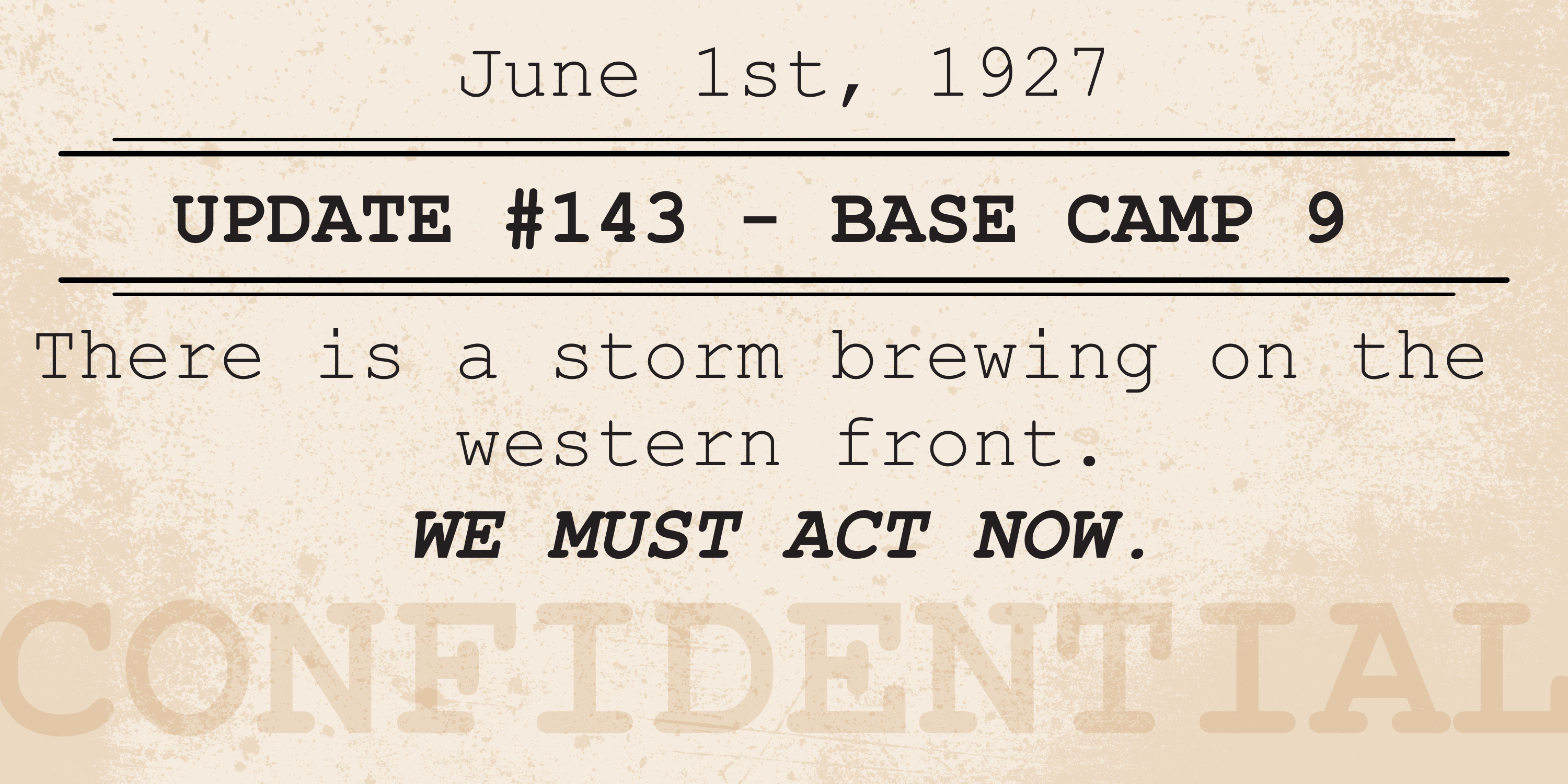
Courier New OS Font is perfect for programming documentation, technical manuals, code editor interfaces, typewriter-style designs, terminal applications, vintage computing graphics, monospace web layouts, software development materials, retro tech branding, and authentic coding environments.
Courier New OS Font is exciting because it represents the foundational typography of digital computing and programming culture through its precise monospaced letterforms that honor the legacy of typewriters while serving as the backbone of modern software development and technical communication.
Courier New OS Font family includes Regular, Bold, Light, Oblique, Italic, Condensed, Extended, and Mono variations, offering developers and designers a complete monospaced toolkit to create authentic technical communications that maintain perfect character alignment and coding clarity.
Courier New OS Font embodies the essence of technical precision and programming tradition, making it an essential choice for software companies, educational institutions, and technical organizations that prioritize functionality and coding authenticity. This fundamental typeface brings reliability and technical credibility to any design project, whether you're developing programming tutorials, creating software documentation, or designing developer tools. The perfectly uniform character spacing of Courier New OS Font Free Download ensures optimal code readability while maintaining the nostalgic appeal that connects modern developers to computing history and typewriter traditions.
Technology industry professionals consistently choose Courier New OS Font for code editors, terminal interfaces, and technical documentation because of its ability to provide perfect character alignment and reduce eye strain during extended coding sessions. The font's utilitarian appearance makes it particularly effective for targeting developers and creating programming environments that prioritize functionality over aesthetics.
Courier New OS Font dominates educational and technical environments where code clarity and learning efficiency are paramount. Computer science programs and coding bootcamps rely on this font to create materials that help students develop proper programming habits while maintaining visual consistency across different platforms and operating systems.
The software development and tech consulting sectors have embraced Courier New OS Font for API documentation, technical specifications, and developer-focused communications. Its authoritative visual presence helps organizations establish credibility within technical communities while ensuring that complex code examples and technical instructions remain perfectly readable and properly formatted across all devices.